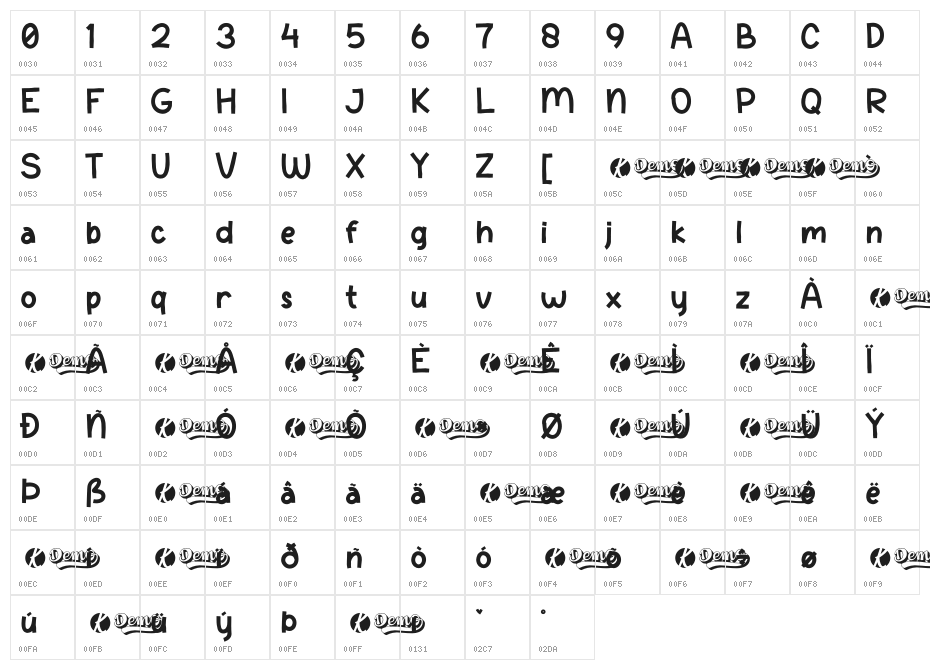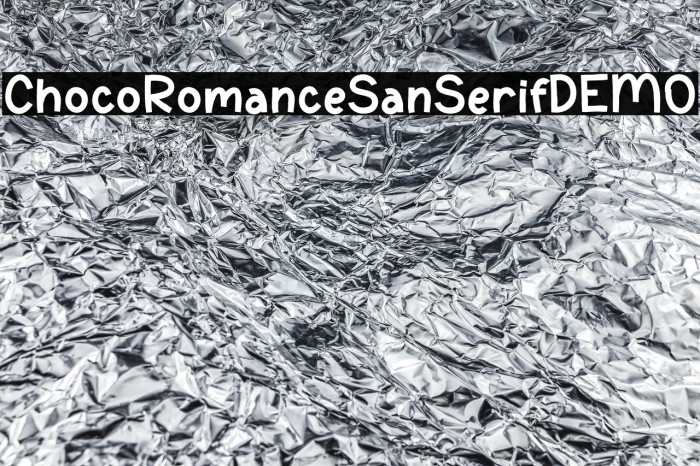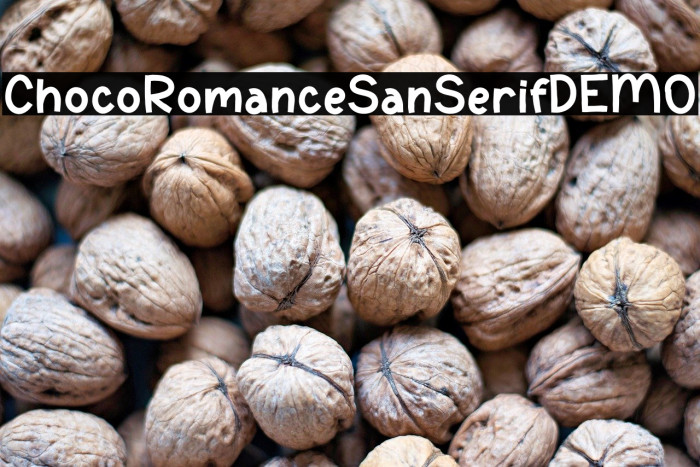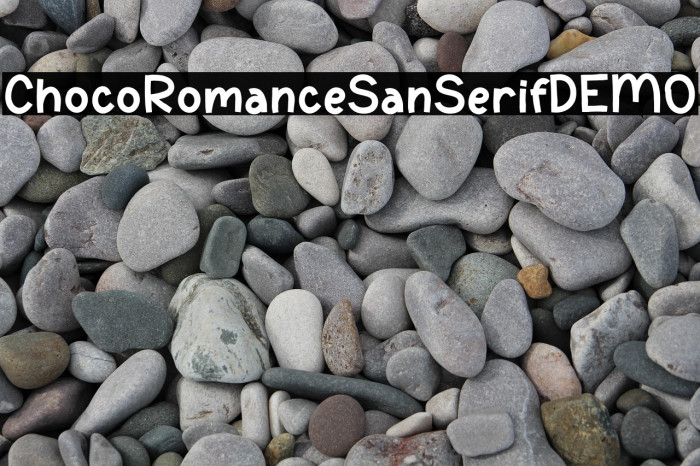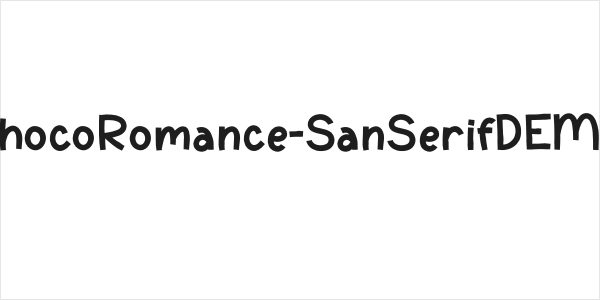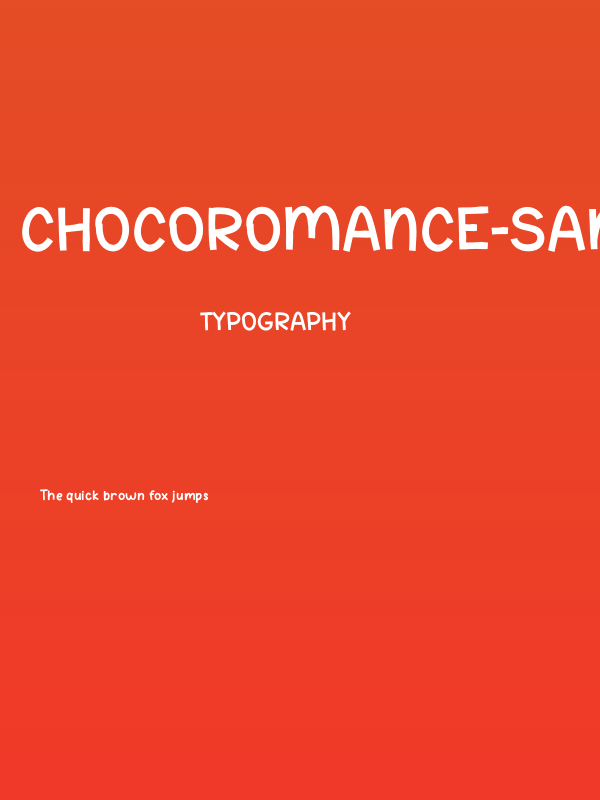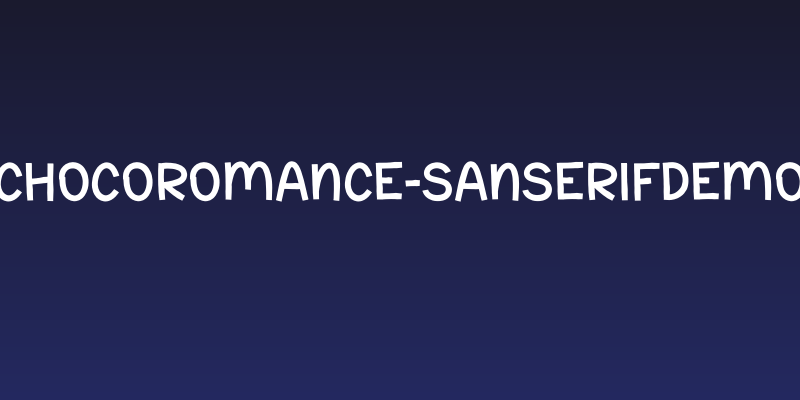
ChocoRomance-SanSerifDEMO Font
ChocoRomance-SanSerifDEMO Description
This playful and whimsical font features a bold, rounded style with a hand-drawn appearance. The characters are slightly irregular, giving it a casual and friendly look. The uppercase and lowercase letters maintain a consistent weight, while the numbers and special characters complement the overall style. The font's unique charm makes it suitable for creative and informal projects, adding a touch of fun and personality to any design.
| Overall Style | Whimsical |
| Proposed Projects | Ideal for children's books, playful branding, greeting cards, and casual invitations. |